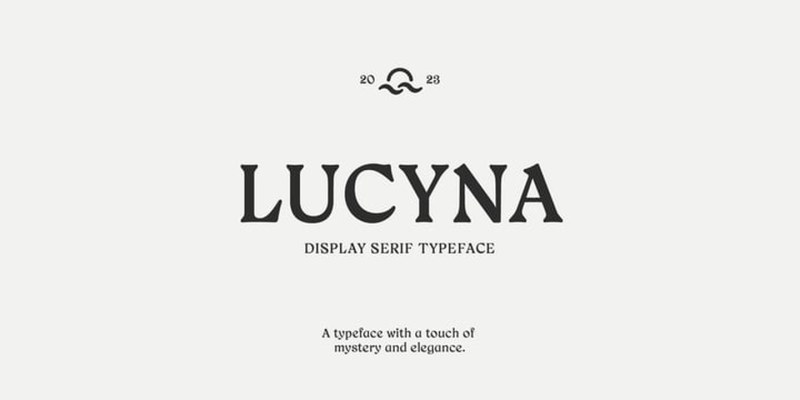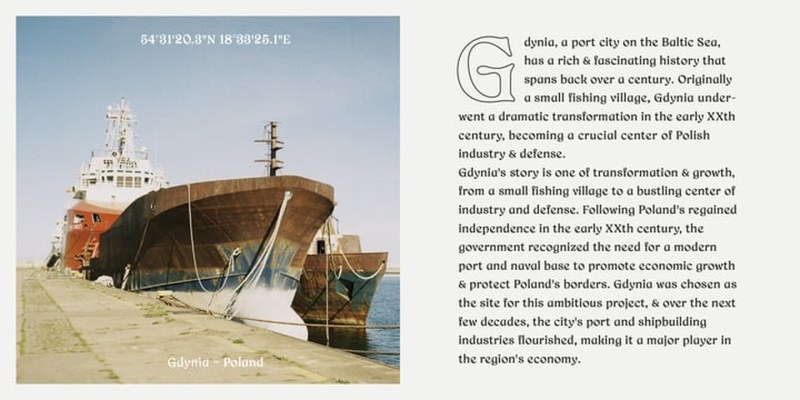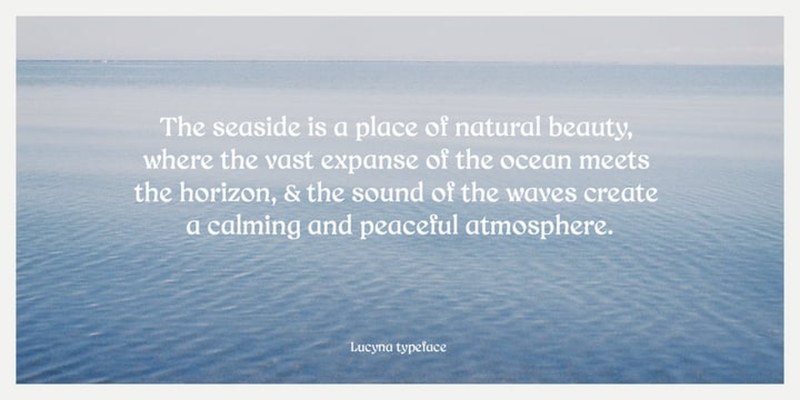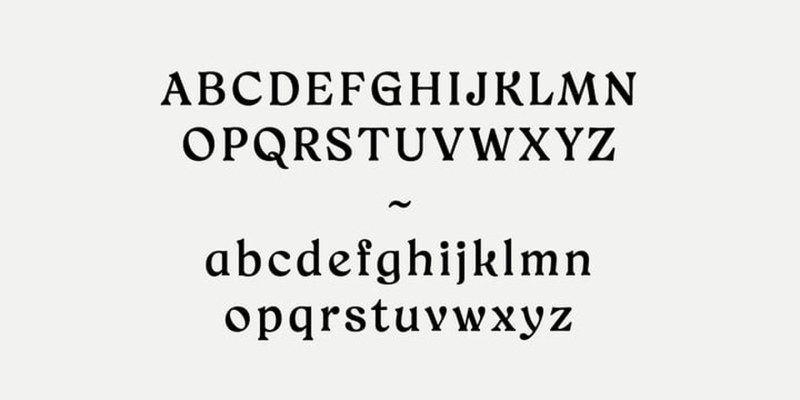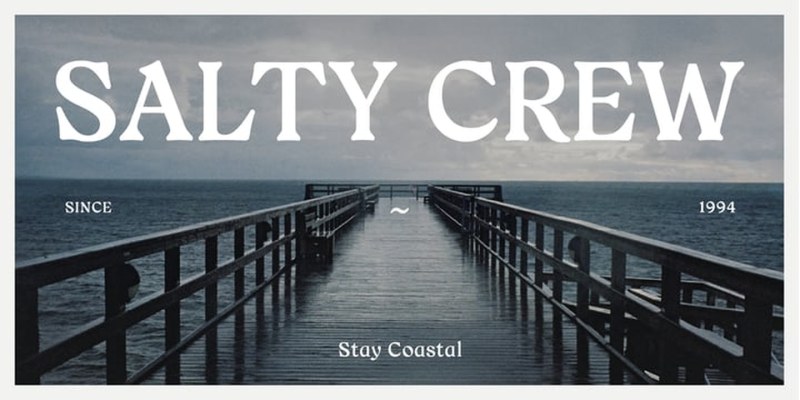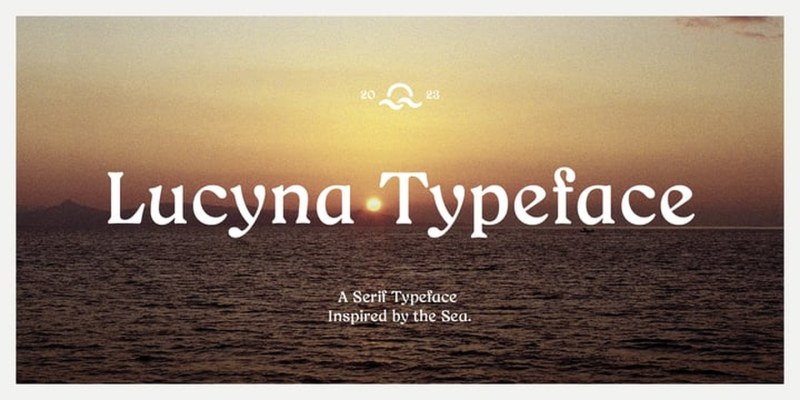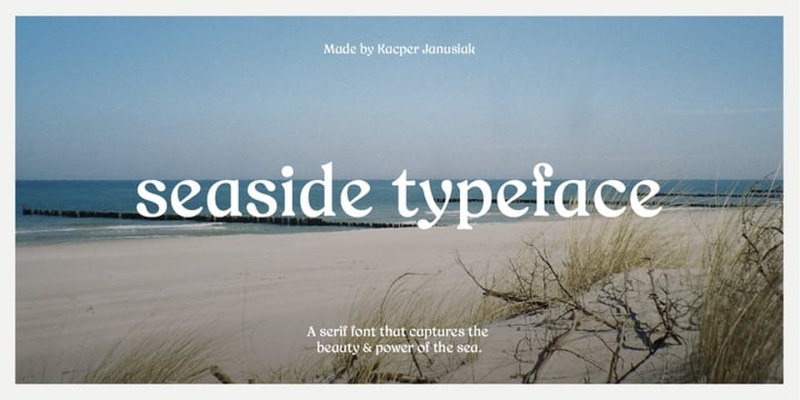
Lucyna Font
The Lucyna serif font is a stylish and sophisticated typeface that exudes elegance and refinement. The font’s unique design, inspired by the natural beauty and fluidity…
The Lucyna serif font is a stylish and sophisticated typeface that exudes elegance and refinement. The font’s unique design, inspired by the natural beauty and fluidity of the sea, features clean and well-defined serifs that give it a distinctive and timeless character. One of the most popular styles in the Lucyna family is the regular weight, which has a balanced and harmonious look that is easy on the eyes.
This makes it perfect for use in long-form text such as books, magazines, and newspapers. The regular style’s clean lines and legibility also make it an excellent choice for branding and advertising, where it can add a touch of sophistication and class. With its versatility and expressive nature, the Lucyna regular style is a font that can adapt to a wide range of design needs, while still maintaining its distinctive character and personality.
Where Lucyna Font works best
Lucyna Font gives long-form text a classic, trustworthy rhythm — ideal for magazine spreads, annual reports and book interiors.
Pair Lucyna Font with generous letter-spacing for wordmarks in fashion, hospitality, wine and jewellery branding.
Use Lucyna Font for slide titles in Keynote, PowerPoint or Google Slides to add authority without looking dated.
What is Lucyna Font good for?